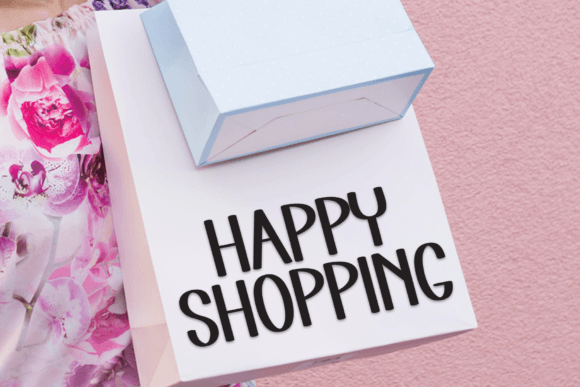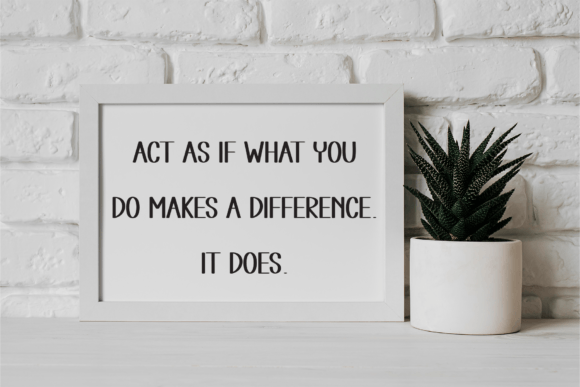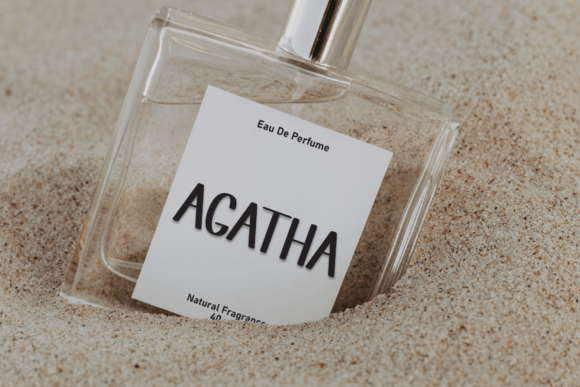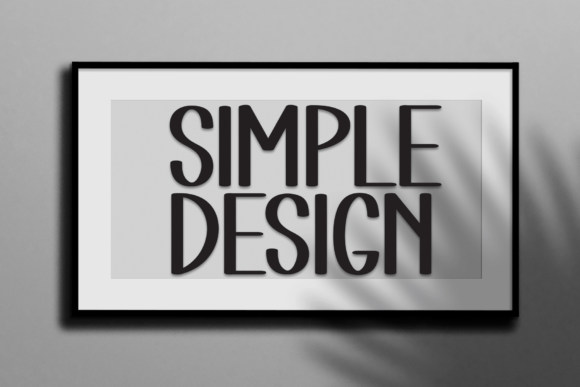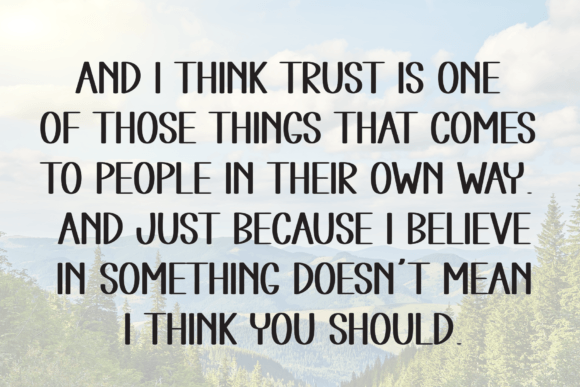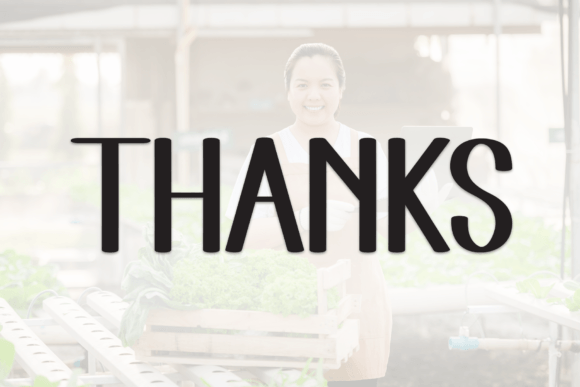
Hello Farmer Font: Adding a Touch of Whimsy to Your Designs
Are you looking for a font that can add a dash of playfulness and charm to your design projects? Look no further than Hello Farmer, a delightfully cozy and handwritten display font that’s sure to captivate your audience. With its irresistibly playful character, Hello Farmer is the perfect choice for designers and crafters who want to infuse their work with a sense of joy and whimsy.
The Charm of Hello Farmer
Hello Farmer is a unique and refreshing font that’s designed to add a touch of personality to any design project. Its handwritten style gives it a warm and inviting feel, making it perfect for projects that require a personal touch. Whether you’re creating love-filled wedding invitations, delightful cards, or any design that craves a sprinkle of joy, Hello Farmer is the ideal choice.
Key Features of Hello Farmer
- Handwritten display font: Hello Farmer is a carefully crafted handwritten font that exudes a sense of warmth and personality.
- Playful character: This font is designed to add a touch of playfulness and whimsy to your designs, making it perfect for projects that require a lighthearted approach.
- Fresh and fun allure: Hello Farmer has a fresh and fun appeal that’s sure to capture the attention of your audience and leave a lasting impression.
- Unique appeal: This font has a unique and distinctive style that’s sure to make your designs stand out in a crowd.
Uses for Hello Farmer
Hello Farmer is a versatile font that can be used for a wide range of design projects, including:
- Wedding invitations: Add a touch of romance and whimsy to your wedding invitations with Hello Farmer.
- Greeting cards: Create delightful greeting cards for any occasion with this charming font.
- Social media graphics: Use Hello Farmer to add a playful touch to your social media graphics and make them stand out.
- Branding and packaging: This font is perfect for brands that want to add a personal touch to their packaging and branding materials.
Why Choose Hello Farmer?
With so many fonts to choose from, why should you choose Hello Farmer for your design projects? Here are just a few reasons:
- Unique style: Hello Farmer has a unique and distinctive style that’s sure to make your designs stand out.
- Easy to read: Despite its playful character, Hello Farmer is easy to read and understand, making it perfect for use in a variety of design projects.
- Versatile: This font can be used for a wide range of design projects, from wedding invitations to social media graphics.
Tips for Using Hello Farmer
Here are a few tips for using Hello Farmer in your design projects:
- Use it sparingly: Hello Farmer is a bold and playful font, so use it sparingly to add emphasis to your designs.
- Pair it with other fonts: Experiment with pairing Hello Farmer with other fonts to create a unique and visually appealing design.
- Experiment with colors: Don’t be afraid to experiment with different colors and textures to add depth and interest to your designs.
Hello Farmer is a charming and playful font that’s sure to add a touch of whimsy to your design projects. With its unique style, easy readability, and versatility, it’s the perfect choice for designers and crafters who want to create designs that truly stand out. So why not give Hello Farmer a try and see the difference it can make in your designs?